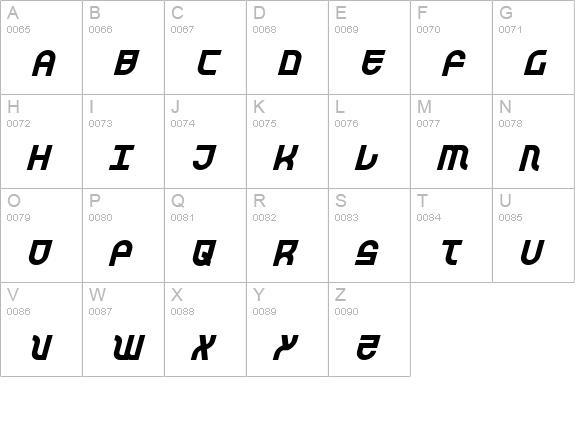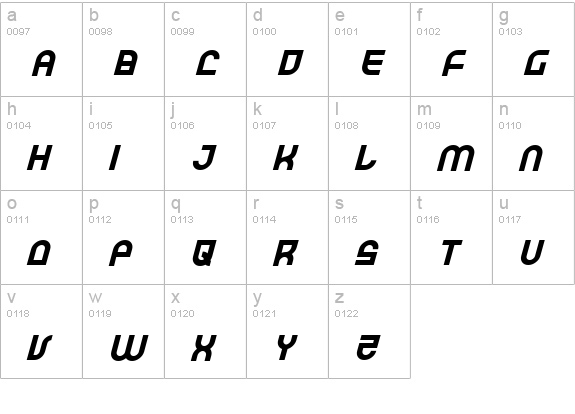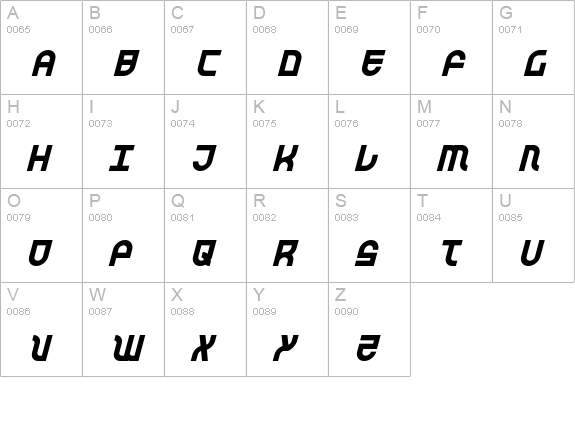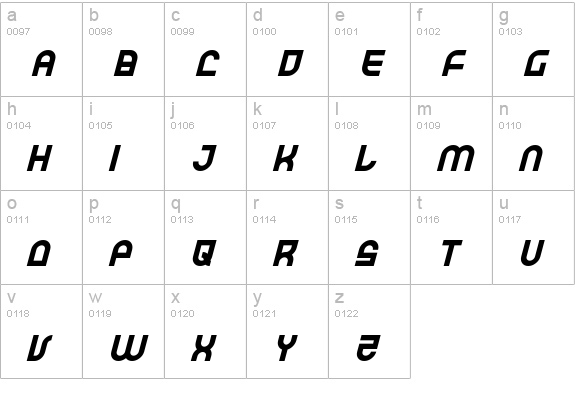
Trek Trooper Italic is a distinctive, italic variant in the Trek typeface family \xE2\x80\x94 well suited to design and typography projects.
Trek Trooper Italic font is a sleek and modern typeface that exudes strength and sophistication. With its bold, italicized style, this font is perfect for adding a touch of elegance to any design project. Whether you're creating posters, logos, or social media graphics, Trek Trooper Italic will make your text stand out. And the best part? This stunning font is available for free download at FontsMarket.com. So go ahead and elevate your designs with Trek Trooper Italic today!